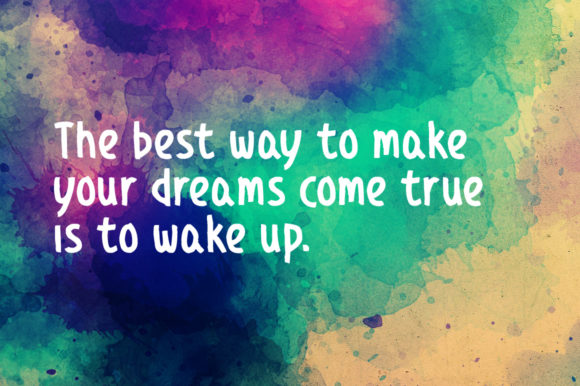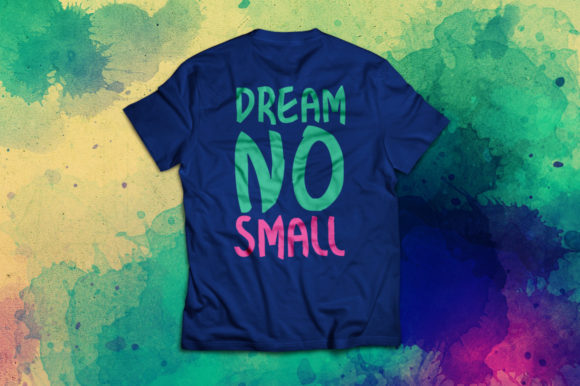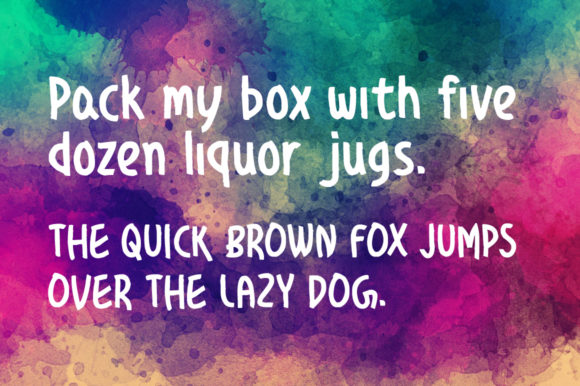
About Define Yourself Today Font
Introducing “Define Yourself Today,” a brand new handwritten font that’s tailored for a wide array of creative applications. This font isn’t just a typeface; it’s a versatile design tool crafted to enhance various projects with a personal and handwritten touch. “Define Yourself Today” is well-suited for stationery, logos, t-shirts, papers, print designs, website headers, photo frames, flyers, music covers, posters, image sliders, and much more.
The handwritten style of “Define Yourself Today” adds a personal and authentic vibe to your projects, making it ideal for stationery and logos where an individual touch is desired. Its versatility extends to apparel designs such as t-shirts, providing a unique and handcrafted feel.
Whether you’re working on print designs, website headers, or promotional materials like flyers and posters, “Define Yourself Today” fits seamlessly, adding a touch of personality and warmth to your visual elements. The font’s adaptability makes it suitable for diverse applications, ensuring a consistent and engaging design across various platforms.
In the realm of music covers and image sliders, “Define Yourself Today” offers a distinct and original style that captures attention and contributes to a cohesive visual identity. Its handwritten charm can enhance the overall aesthetic of your projects, making them stand out and leaving a memorable impression.
In summary, “Define Yourself Today” is more than just a font; it’s a design companion that brings a handwritten and personal touch to your creative endeavors. Embrace its versatility for stationery, logos, apparel, print designs, and more, and let “Define Yourself Today” define the unique and authentic character of your projects.